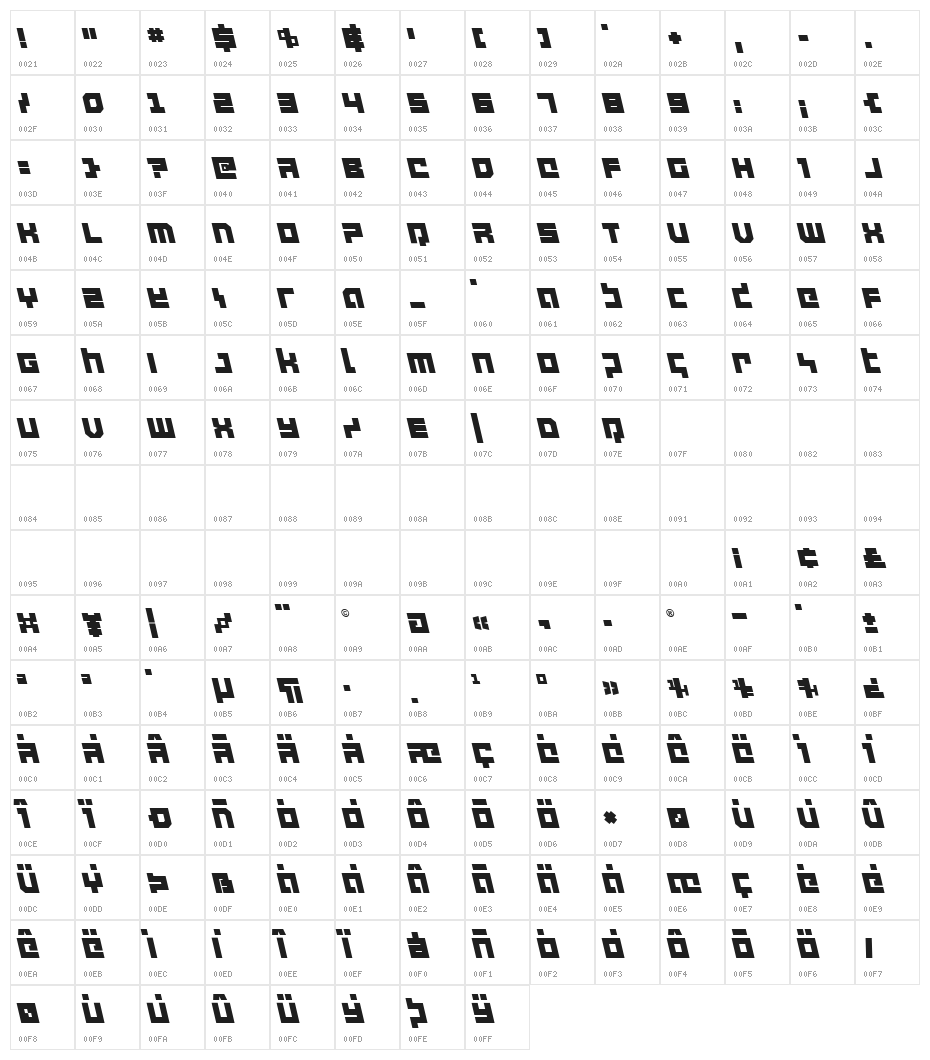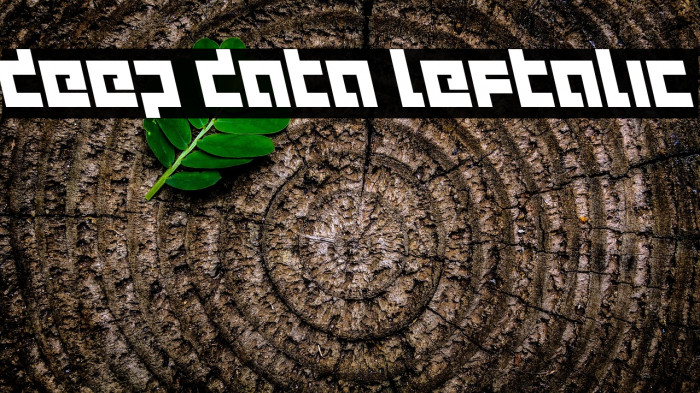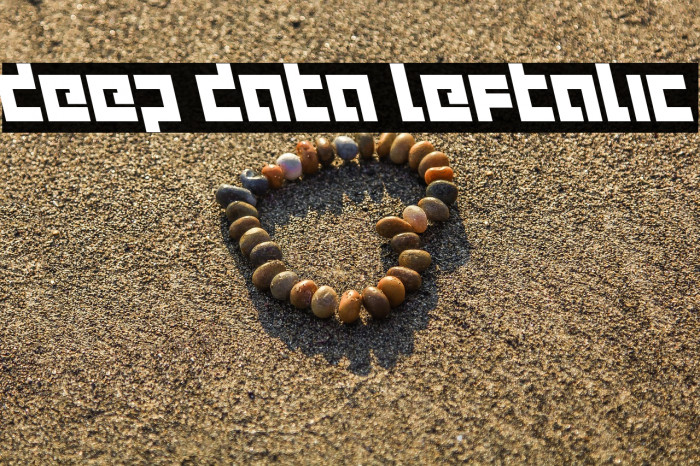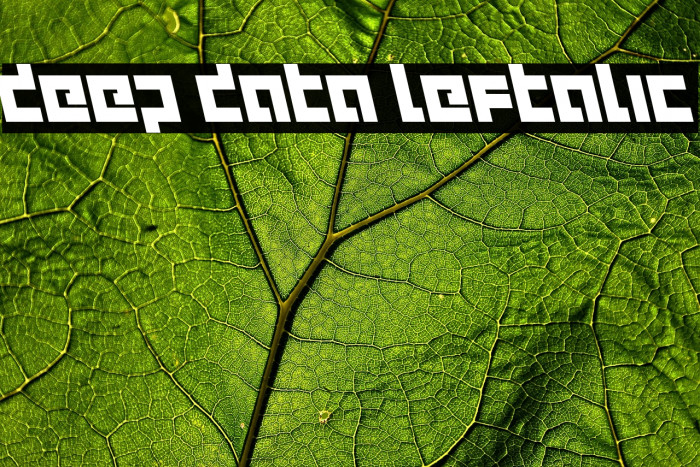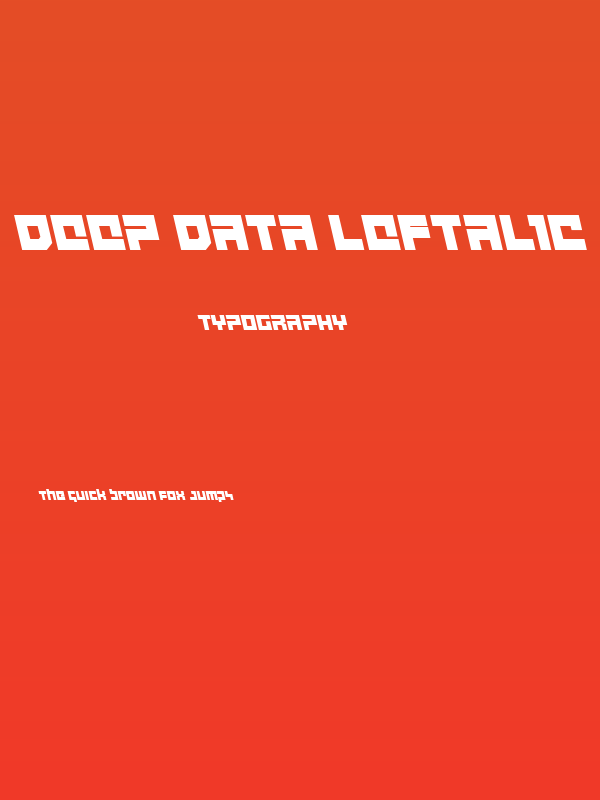
deep data leftalic Font
deep data leftalic Description
This font features a bold, geometric design with a distinctly futuristic and angular aesthetic. Each character is crafted with sharp edges and a blocky structure, giving it a strong and impactful presence. The letters are uniformly wide, maintaining a consistent weight throughout, which enhances its readability despite the unconventional style. The font's design is reminiscent of digital or technological themes, making it suitable for projects that require a modern and edgy look. The characters are tightly spaced, adding to the compact and cohesive appearance of the text.
| Proposed Projects | Ideal for technology-themed projects, video game titles, sci-fi posters, and digital branding. |